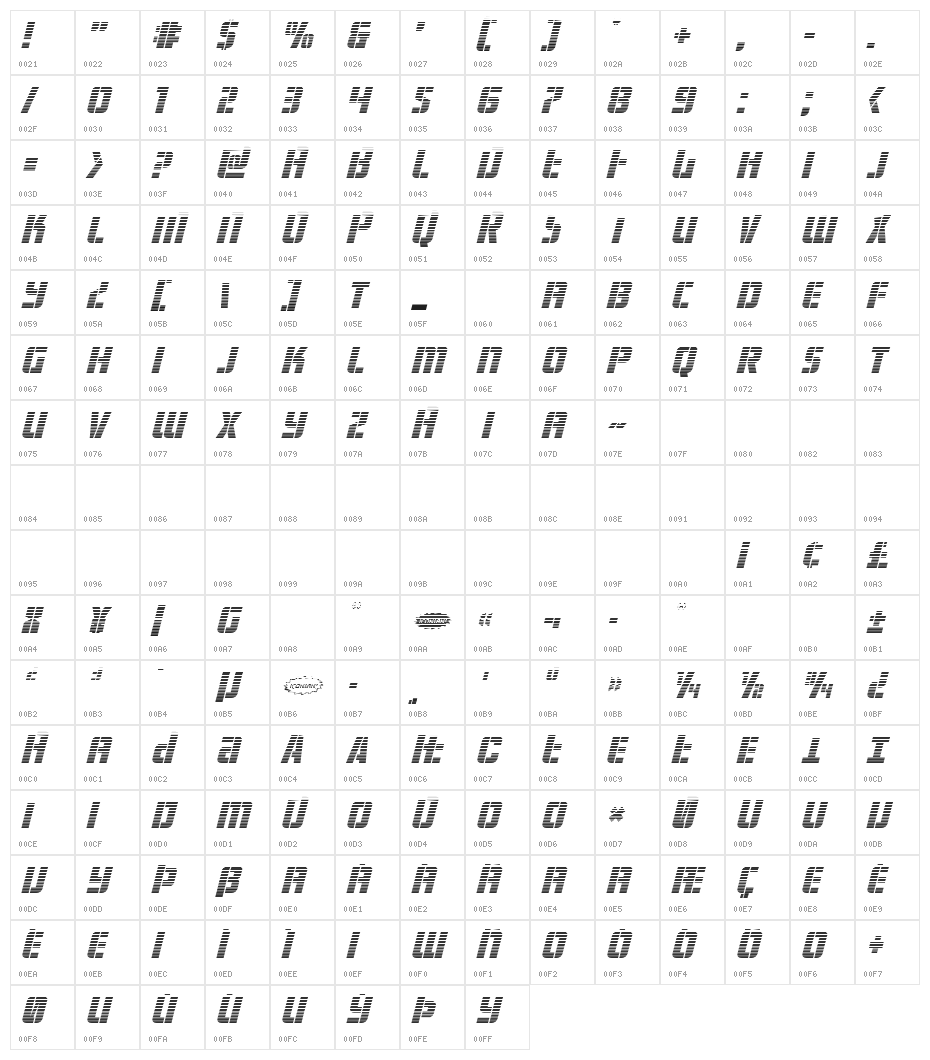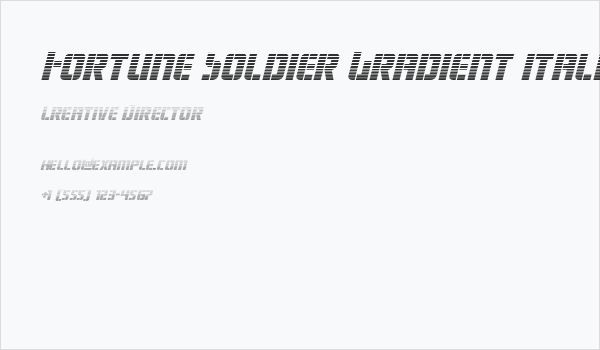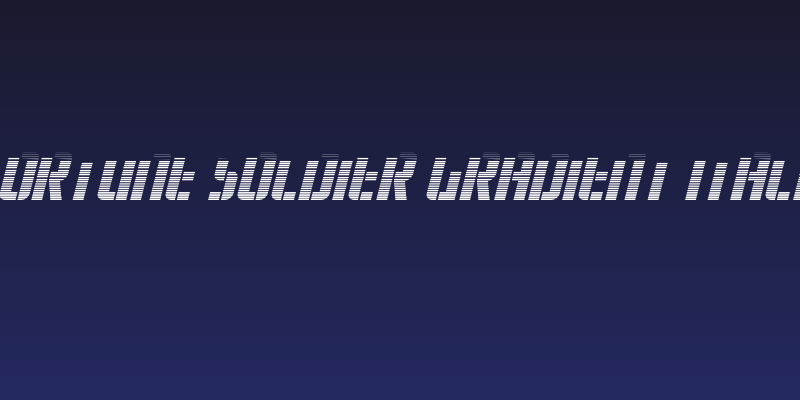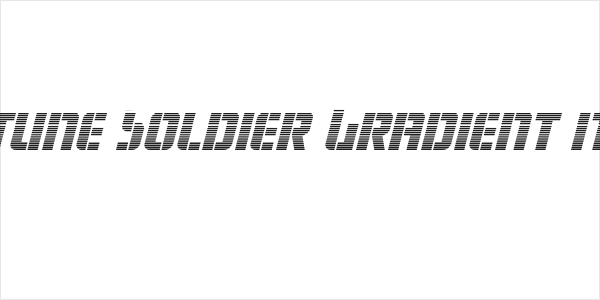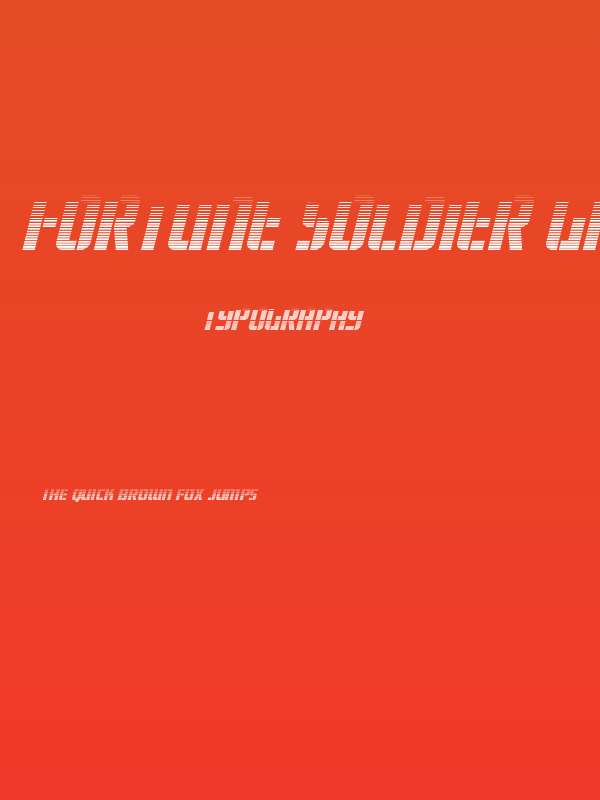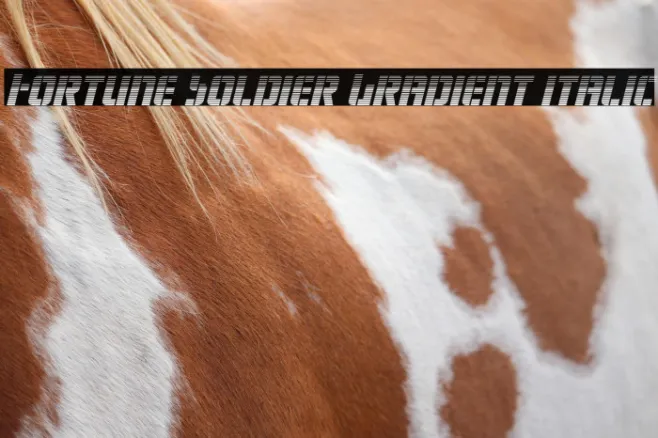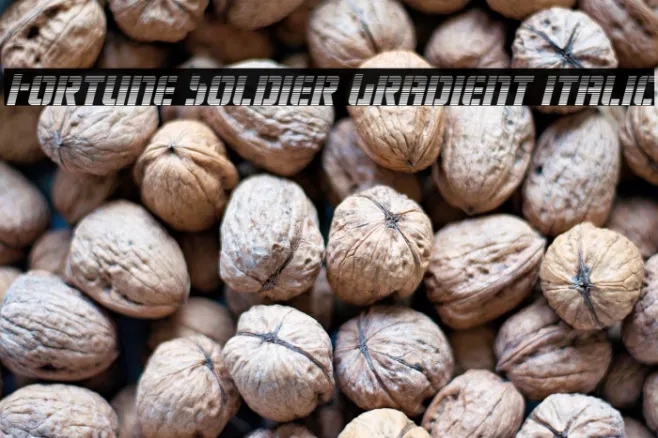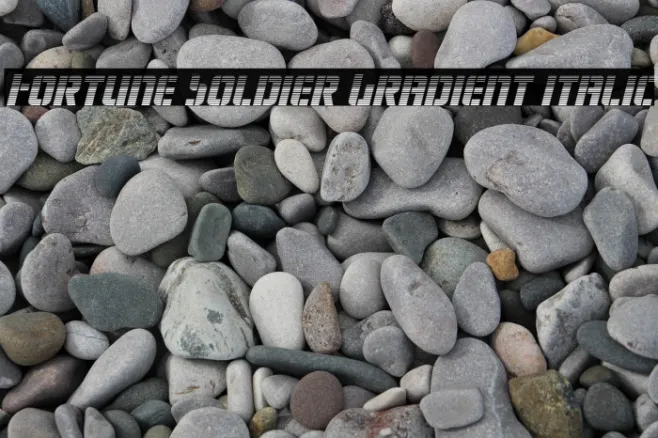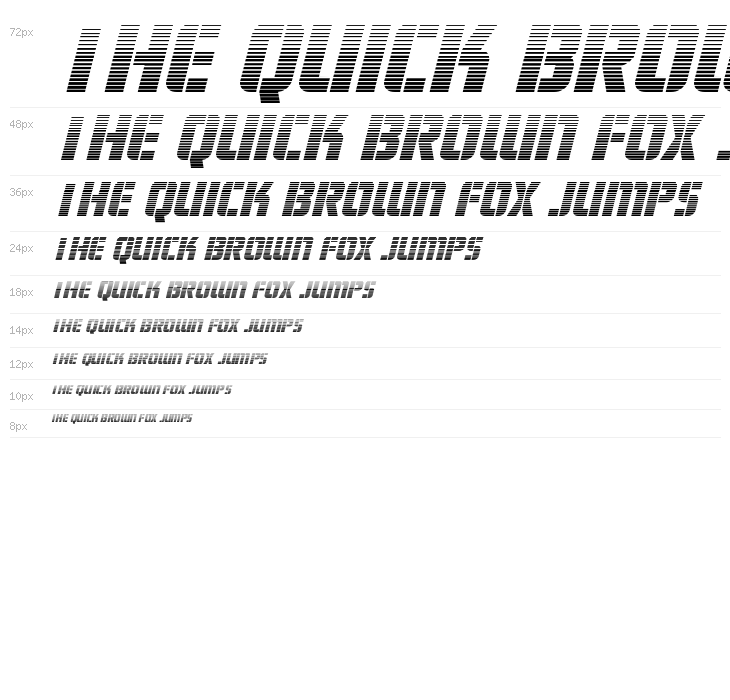
Fortune Soldier Gradient Italic Font
Fortune Soldier Gradient Italic Description
This font features a bold, italicized style with a distinct gradient effect that gives it a dynamic, futuristic appearance. The characters are constructed with horizontal lines that create a sense of movement and depth. The uppercase and lowercase letters maintain a consistent design, with sharp angles and a slightly condensed form. The numbers and special characters follow the same stylistic approach, ensuring uniformity across all glyphs. This font is particularly eye-catching and suitable for projects that require a modern, tech-inspired aesthetic.
| Overall Style | Futuristic, Dynamic |
| Proposed Projects | Ideal for technology branding, video game titles, sci-fi movie posters, and modern advertising campaigns. |